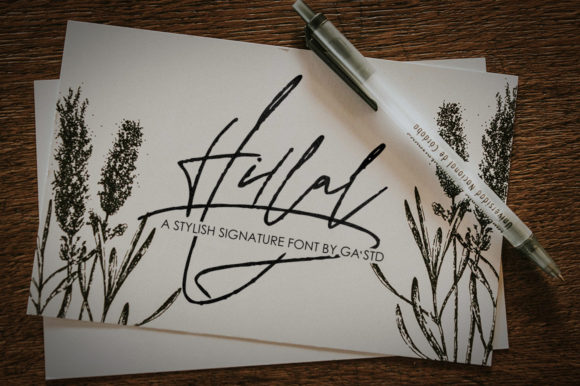
Dive into the enchanting world of Hillal, a script font that weaves a spell of sophistication and allure. Crafted by the visionary designers at Green Adventure Studio, Hillal takes inspiration from timeless typography, reimagined with a modern twist.
Whether you're painting the canvas of your website, leaving an indelible mark on paper, or captivating audiences with mesmerizing moving images, Hillal transforms every design into a masterpiece. Each stroke, meticulously crafted with love, dances across the digital realm, leaving behind an unforgettable impression.
Unlike ordinary fonts that merely fill space, Hillal possesses an alluring aura that invites connection and sparks imagination. Its graceful curves and sweeping lines evoke a sense of longing and desire, drawing your audience into the depths of your creative vision. It's not just a font; it's a catalyst for emotional storytelling.
Imagine the enchantment of sending text messages on your iPhone, each character imbued with the magic of Hillal. Your words become works of art, expressing emotions with unparalleled depth and nuance. The recipient's heart will flutter with anticipation as they decipher your message, enriched by the timeless beauty of this exquisite font.
With Hillal at your fingertips, you'll discover a boundless realm of creative possibilities. It's a font that empowers you to express your individuality, leaving an indelible mark on the world. Whether you're a seasoned designer or just starting your creative journey, Hillal will ignite your imagination and inspire you to create designs that captivate and enchant.
Embrace the allure of Hillal and unlock the gateway to a world of unforgettable typography.